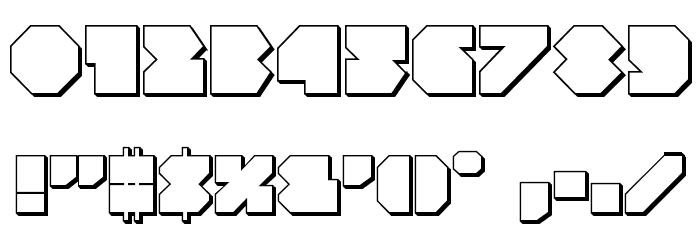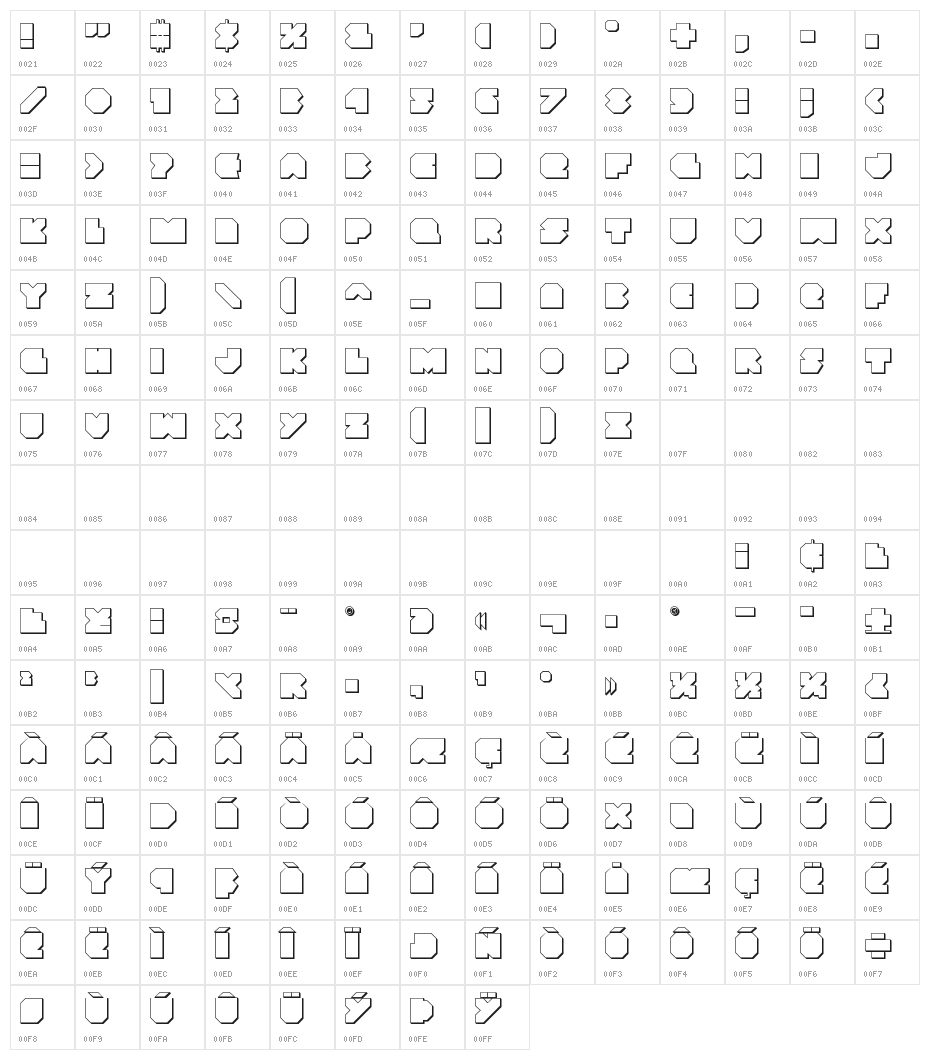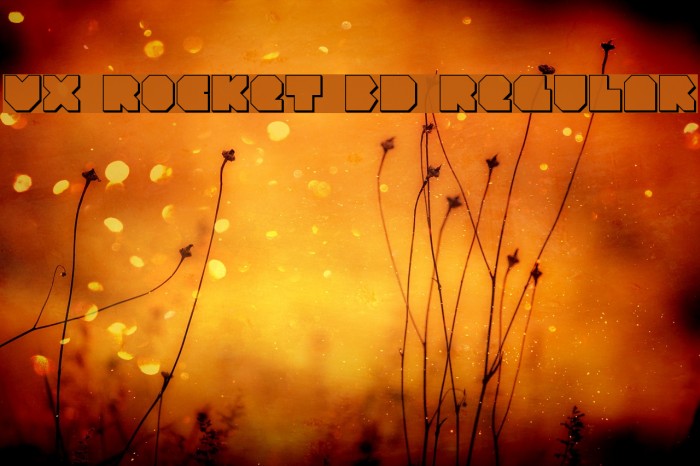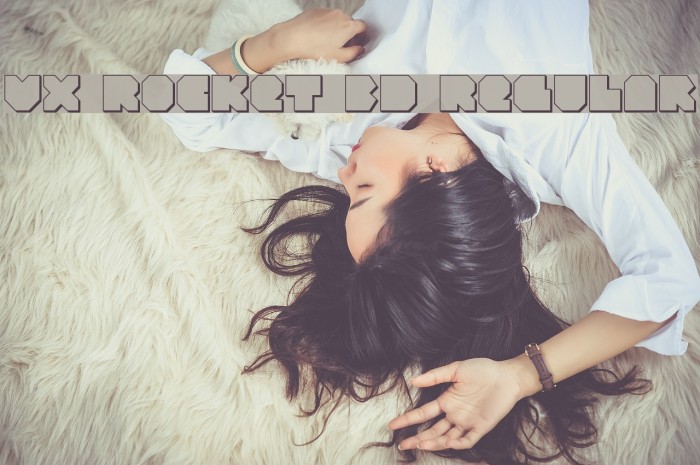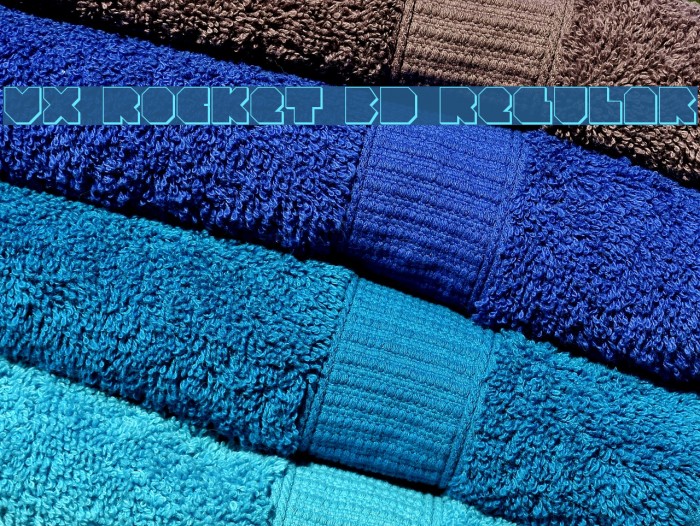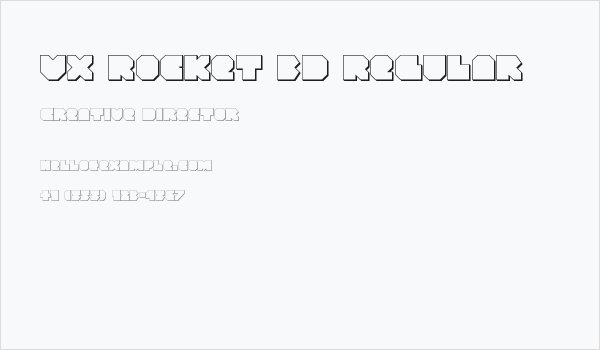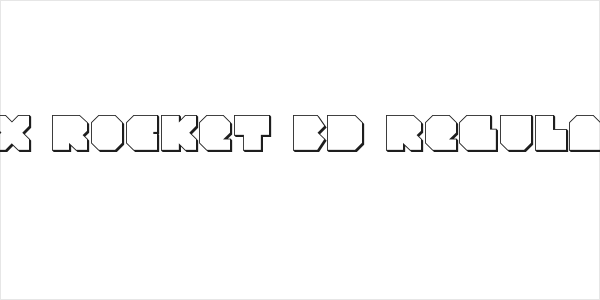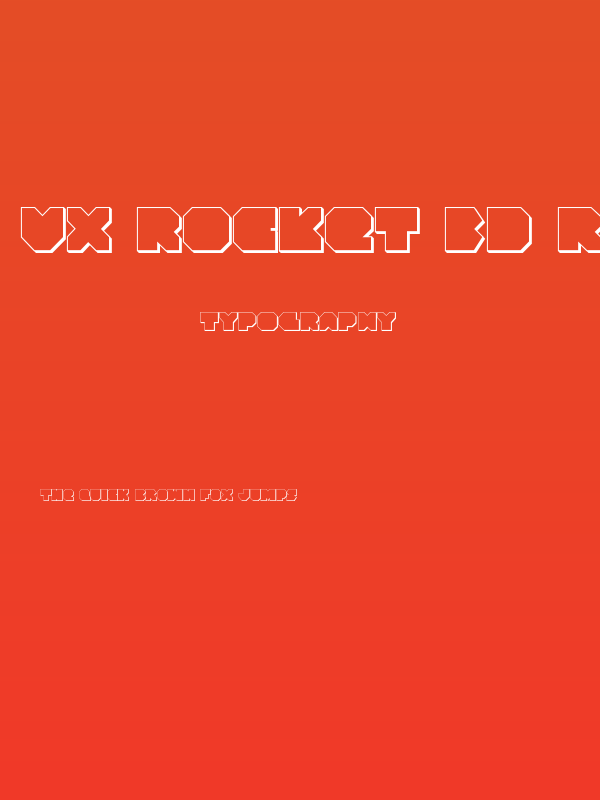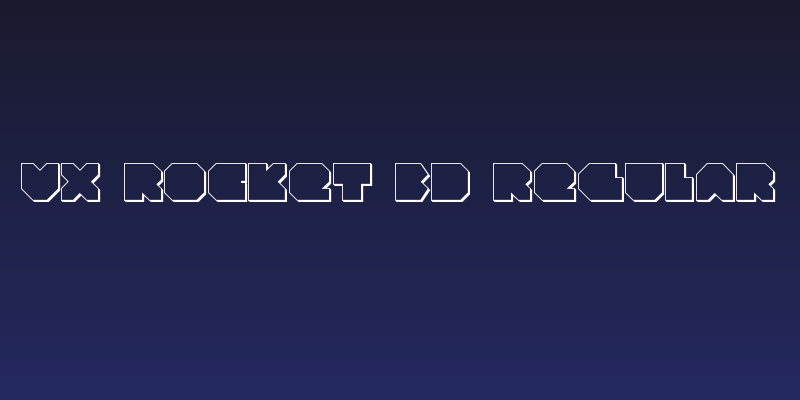
VX Rocket 3D Regular Font
VX Rocket 3D Regular Description
This font features a bold, geometric design with a three-dimensional effect that gives it a futuristic and dynamic appearance. The characters are constructed with sharp angles and straight lines, creating a sense of movement and depth. The uppercase and lowercase letters maintain a consistent style, with each character appearing as a solid block with a shadow effect that enhances the 3D illusion. The numbers and special characters follow the same design principles, ensuring uniformity across the entire character set. The font's unique style makes it stand out, making it ideal for projects that require a modern and eye-catching typeface.
| Proposed Projects | Ideal for video game titles, sci-fi movie posters, technology branding, and futuristic event invitations. |